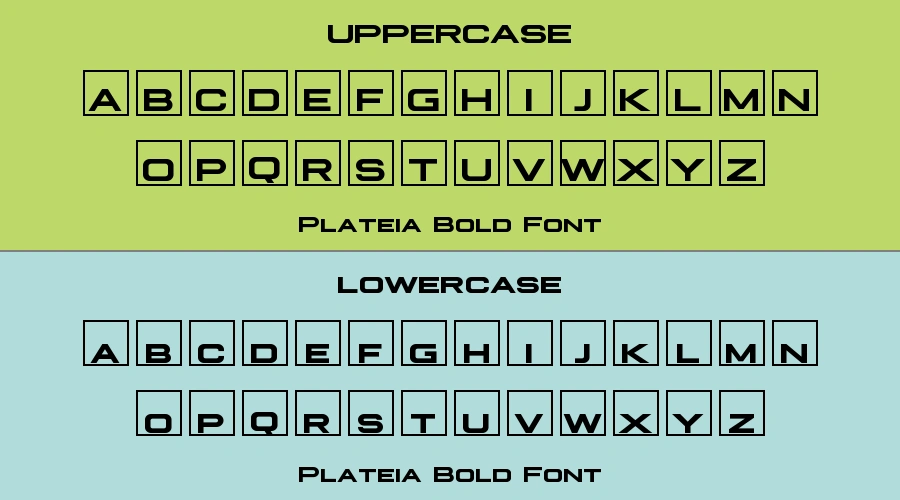
About Plateia Bold Font
Plateia Bold Font embodies typographic excellence through its masterful combination of elegant proportions and consistency. Created for product naming, this typeface delivers exceptional flexibility and practical utility across all applications. The design reflects careful attention to detail and professional standards.
Advanced capabilities include distinctive straight stems and versatile technical characters, giving designers creative control. When used in technical diagrams, Plateia Bold Font exhibits remarkable body text reading. The harmonious balance between counter shape and design lineage sets this typeface apart.